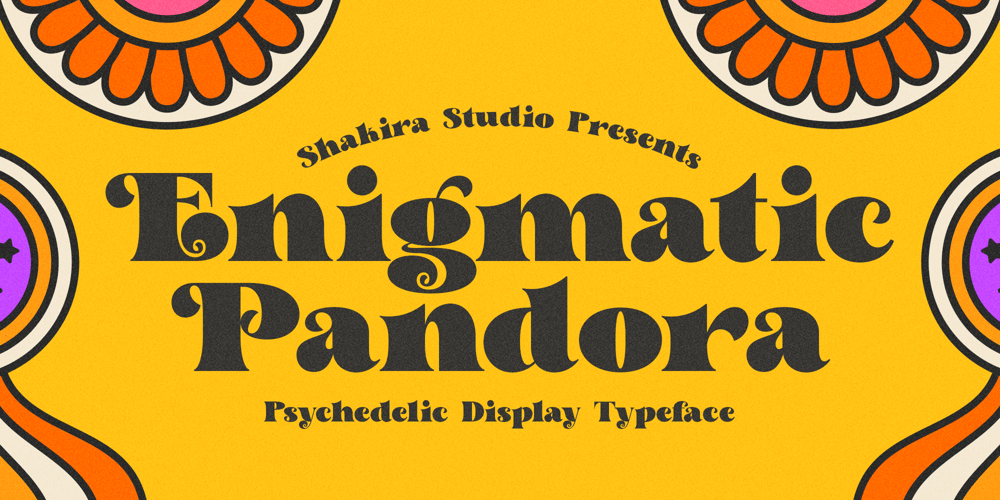
Enigmatic Pandora
Enigmatic Pandora font
Enigmatic Pandora Font Family was designed by Idhham Cholid Rikzano Yahya and published by Shakira Studio. Enigmatic Pandora contains 1 styles and family package options. Say hello to new serif font, Enigmatic Pandora!Enigmatic Pandora is a serif font that combines a psychedelic uniqueness with bold boldness in each letter. With its eye-catching psychedelic characteristics, Enigmatic Pandora exudes an aura of mystery and magic that is hard to describe.Enigmatic Pandora offers a great typography experience with bold bold characters. Its bold and striking design makes each letter a centerpiece in the design. Combining stunning psychedelic elements with strong, compelling contours, this font provides a unique and compelling visual dimension.Enigmatic Pandora is suitable for use in design projects that want to express visual uniqueness and tension. This font is ideal for titles, posters, illustrations, album designs, and other creative projects that need an extraordinary and bold look.Here’s what you get: Enigmatic Pandora Regular All Multilingual symbol Opentype features ( ligature, alternate ) Accessible in the Adobe Illustrator, Adobe Photoshop, Adobe InDesign, even work on Microsoft Word. PUA Encoded Characters – Fully accessible without additional design software. Multilingual character supports : (Afrikaans, Albanian, Catalan, Croatian, Czech, Danish, Dutch, English, Estonian, Finnish, French, German, Hungarian, Icelandic, Italian, Lithuanian, Maltese, Norwegian, Polish, Portuguese, Slovenian, Spanish, Swedish, Turkish, Zulu)Follow my shop for upcoming updates, and for more of my work,Thank you!